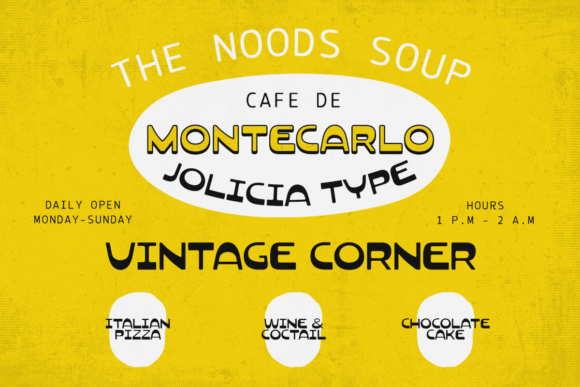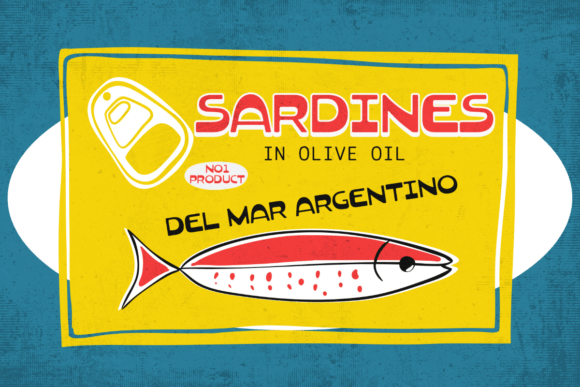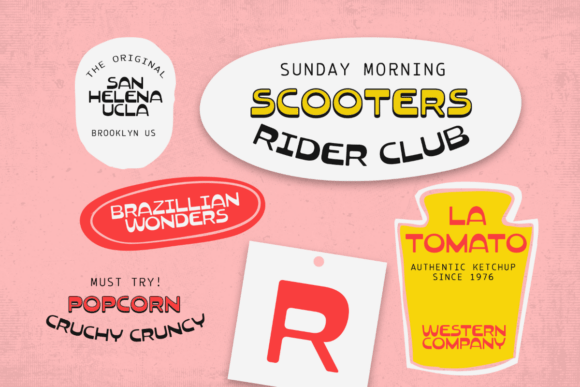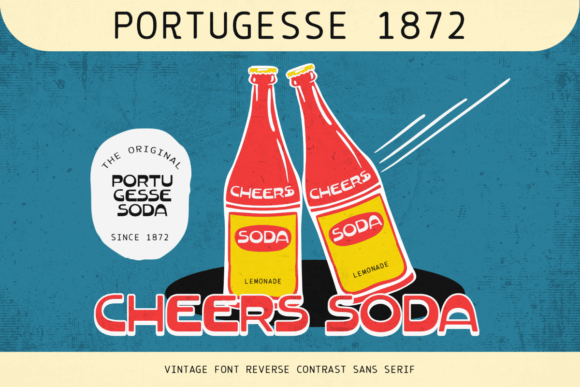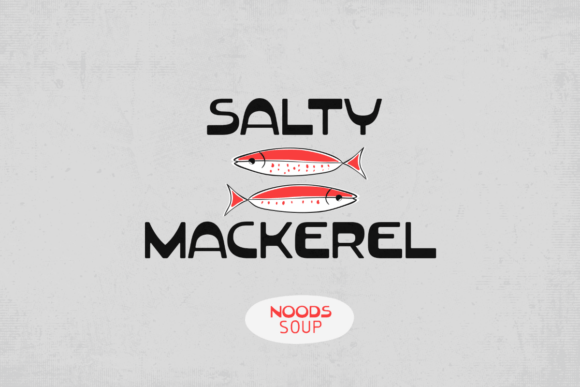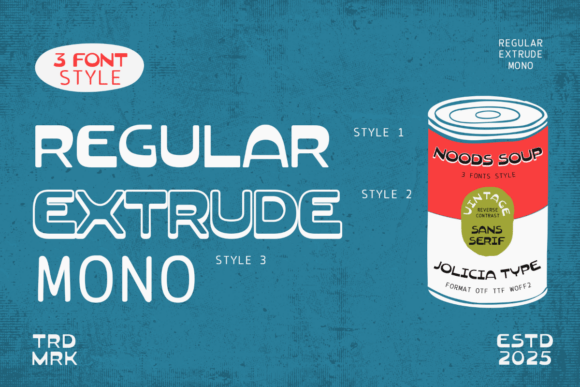
Introduction to Noods Soup Font
Step back in time with Noods Soup, a typeface that captures the playful spirit of classic retro lettering while remaining relevant for today’s design needs.
With its charming details and timeless appeal, this font is designed to bring instant character and personality to your work Noods Soup is a retro-inspired typeface with bold characters and a nostalgic touch.
Key Features of Noods Soup Font
Why Choose Noods Soup Font?